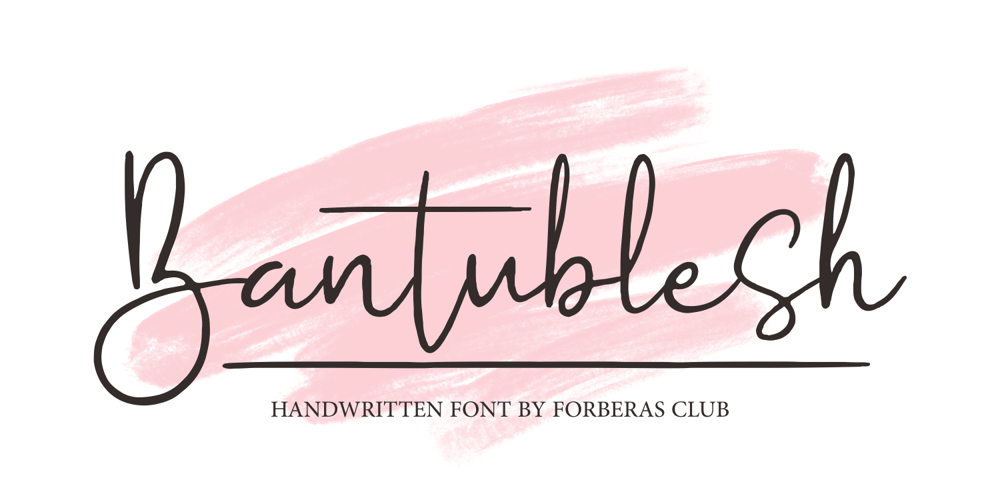
Bantublesh
Bantublesh font
Bantublesh Font Family was designed by ANGGI HERMAWAN and published by Forberas Club. Bantublesh contains 1 styles and family package options. Bantublesh is handwriting style. This font create and nice to application for wedding invitation, tees design, cover, writing text, wedding moment, logo photography , signature and many more.